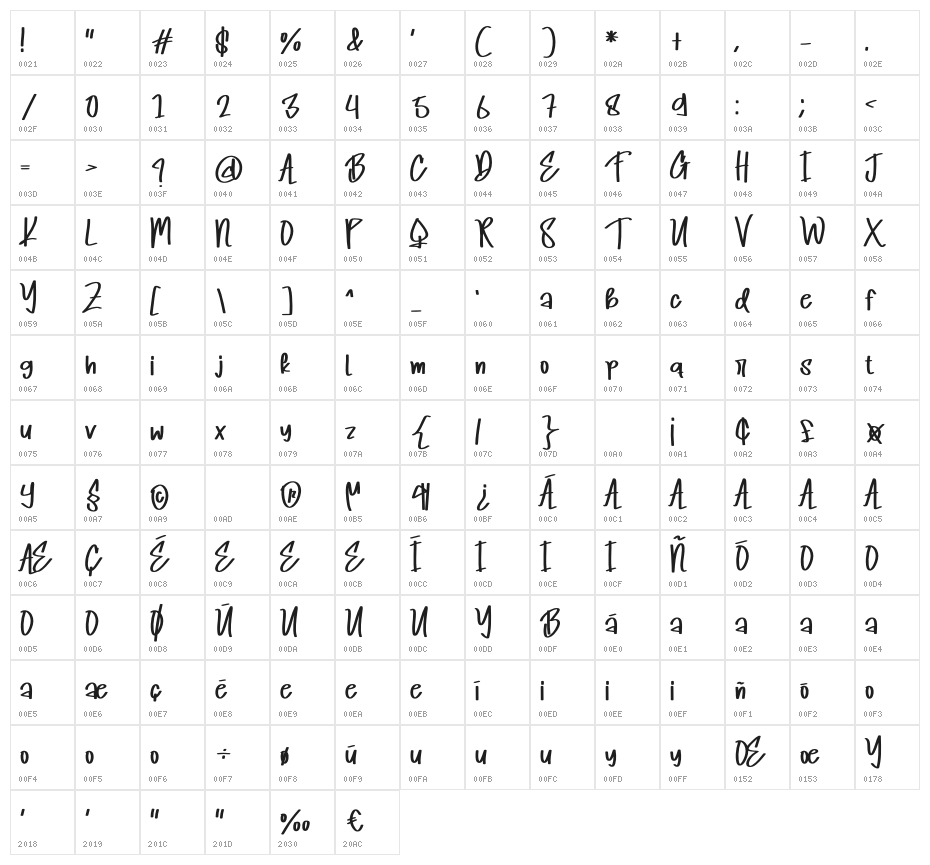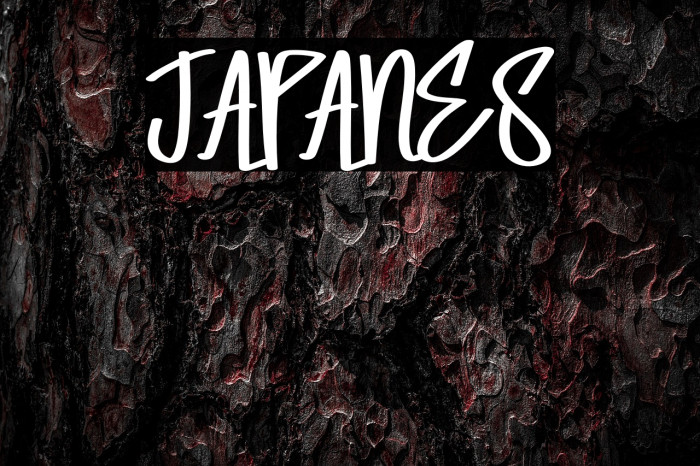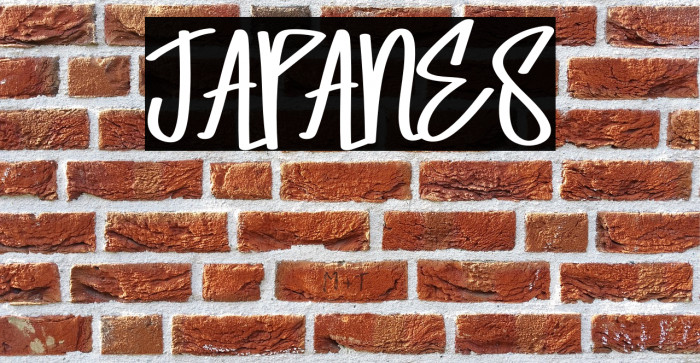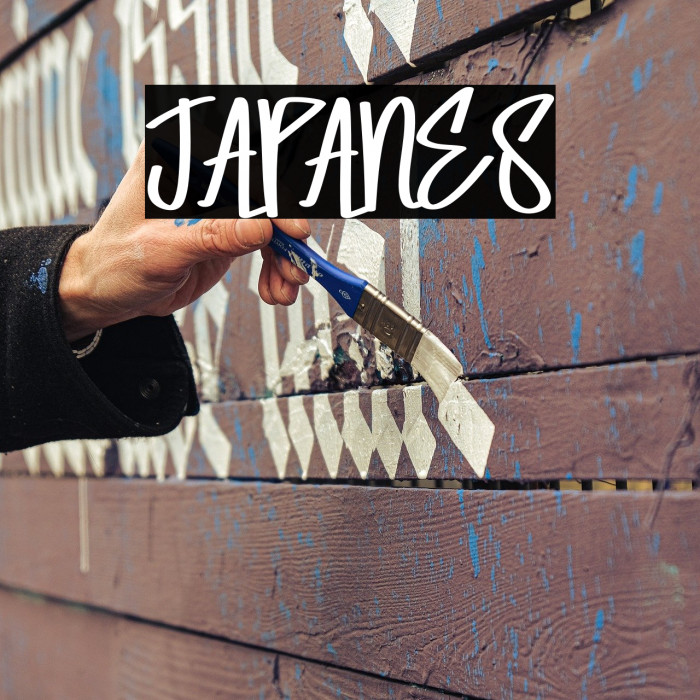
JAPANES Font
JAPANES Description
A playful, handwritten script font with tall, narrow letterforms and a casual, energetic flow. The strokes are consistent in thickness, and the characters have a slightly irregular, organic appearance, enhancing the handwritten feel.
| Width | Condensed |
| Overall Style | Playful, Casual, Modern |
| Use Case | Headlines, Logos, Informal text, Creative projects |
| Proposed Projects | Greeting cards, posters, social media graphics, branding for creative businesses, informal invitations. |